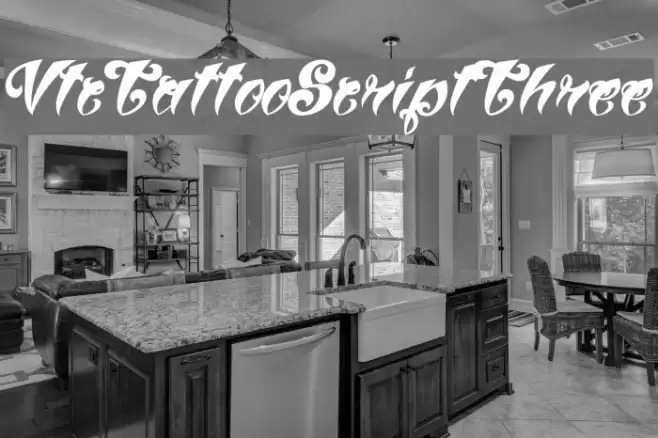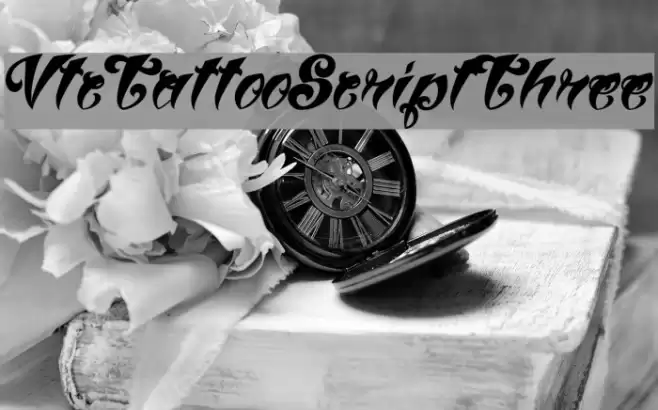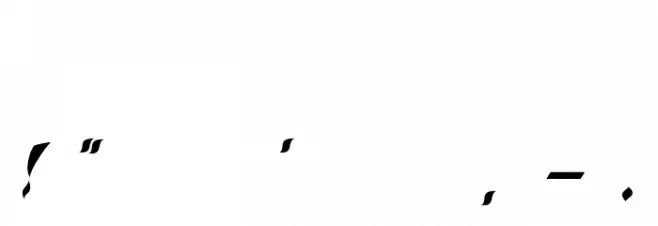
VtcTattooScriptThree Font
VtcTattooScriptThree Description
This font features an intricate and ornate script style, characterized by its flowing, decorative letterforms. Each character is designed with elaborate swirls and curls, giving it a distinct tattoo-like appearance. The uppercase letters are bold and commanding, while the lowercase letters maintain a consistent style with slightly less flourish. The numbers and special characters are equally stylized, ensuring a cohesive look across all text. This font's unique design makes it stand out, perfect for projects that require a touch of elegance and artistry.
An ornate, tattoo-inspired script font with elaborate swirls from Uncategorized fonts.
- Proposed Projects: Ideal for tattoo designs, artistic posters, invitations, and branding that requires a decorative touch.
- Use Case: Logos, Headlines, Artistic projects